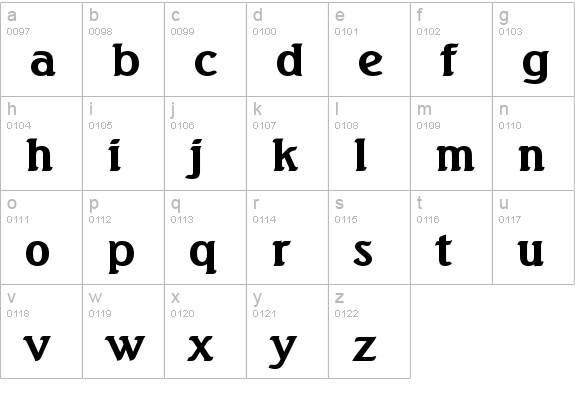
Beach Wide Bold Font Details
Beach Wide Bold is a strong, high-contrast, extended-width variant in the Beach typeface family \xE2\x80\x94 well suited to headlines, attention-grabbing titles, and strong calls-to-action.
Introducing Beach Wide Bold - a stunning display font that exudes a sense of adventure and relaxation. With its bold and wide letterforms, this font is perfect for creating eye-catching headlines, posters, and branding materials that demand attention. The clean lines and modern aesthetic of Beach Wide Bold make it a versatile choice for a variety of design projects. Best of all, Beach Wide Bold is available for free download at FontsMarket.com. Whether you're a seasoned designer looking to add a fresh font to your collection or a beginner searching for the perfect typeface for your next project, Beach Wide Bold is an excellent choice. Don't miss out on the opportunity to elevate your designs with this unique and impactful font. Download Beach Wide Bold today and let your creativity shine!